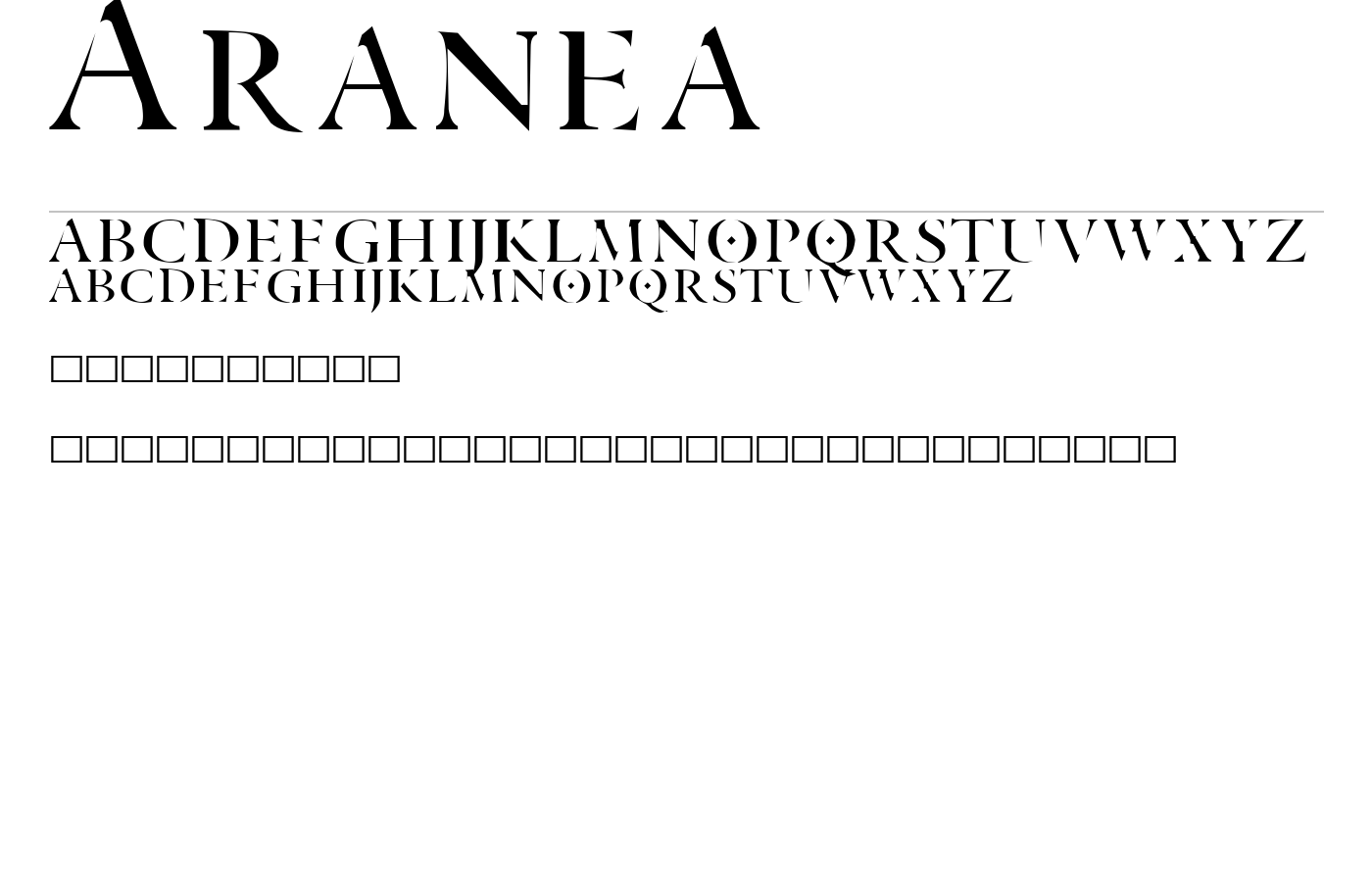
Aranea is a refined serif font characterized by its sharp, high-contrast strokes and elegant, angular serifs, giving it a sophisticated and distinctive look. Its unique letterforms, such as the diamond-shaped counters and stylized details, make it ideal for upscale branding, editorial headlines, and luxury packaging where a striking, classy impression is desired. This font’s blend of modern precision and classic flair suits projects that aim to convey exclusivity and artistic refinement.
Aranea Font